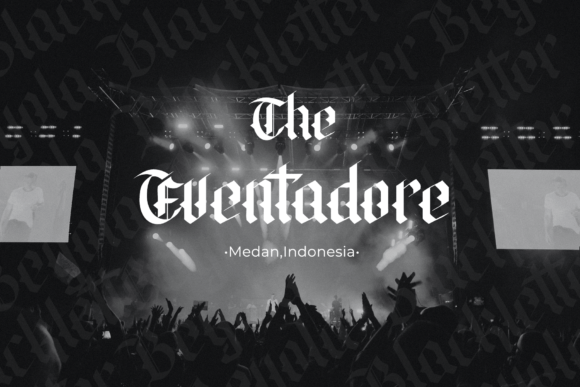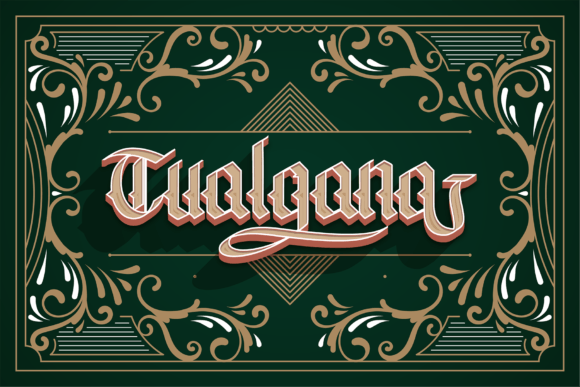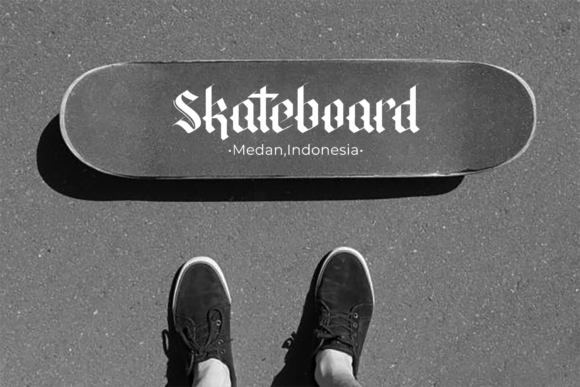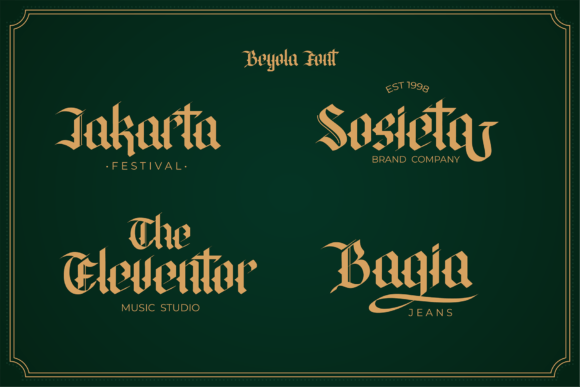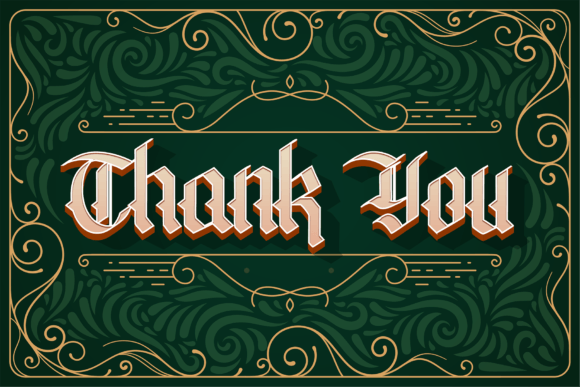
Beyola Font: Elevate Your Designs with a Touch of Vintage Charm
In the world of typography, fonts play a crucial role in conveying the tone and aesthetic of a design. For designers and crafters looking to add a touch of elegance and sophistication to their creations, the Beyola Font is an excellent choice. This stunning blackletter font boasts a vintage shape that fits a wide range of design needs, making it an ideal addition to your typography collection.
The Unique Charm of Beyola Font
Beyola Font is a beautifully crafted blackletter font that exudes a sense of nostalgia and classic charm. Its vintage shape is reminiscent of traditional calligraphy, yet it has a modern twist that makes it versatile and adaptable to various design styles. Whether you’re working on a branding project, a wedding invitation, or a packaging design, Beyola Font is sure to add depth and character to your creations.
Key Features of Beyola Font
- Vintage Blackletter Style: Beyola Font features a classic blackletter style with intricate details and ornate flourishes, giving it a unique and distinctive look.
- High Versatility: This font is highly versatile and can be used for a wide range of design projects, from logos and branding to invitations and packaging.
- Elegant and Sophisticated: Beyola Font adds a touch of elegance and sophistication to any design, making it perfect for projects that require a high level of refinement.
- Easy to Read: Despite its ornate details, Beyola Font is easy to read, making it suitable for both headlines and body text.
How to Use Beyola Font in Your Designs
Using Beyola Font in your designs is easy and straightforward. Here are a few tips to get you started:
- Pair it with a Sans-Serif Font: For a striking contrast, pair Beyola Font with a clean sans-serif font to create a visually appealing combination.
- Use it for Headlines and Titles: Beyola Font is perfect for headlines and titles, where its ornate details and vintage charm can shine.
- Add it to Your Branding: Use Beyola Font to add a touch of elegance and sophistication to your branding, including logos, business cards, and letterheads.
Why Choose Beyola Font?
With so many fonts available, why choose Beyola Font? Here are a few reasons why this font stands out:
- Unique and Distinctive: Beyola Font has a unique and distinctive look that sets it apart from other fonts.
- High-Quality Design: This font is designed with high-quality craftsmanship, ensuring that it looks great in any design.
- Versatile and Adaptable: Beyola Font is highly versatile and adaptable, making it suitable for a wide range of design projects.
In conclusion, Beyola Font is a stunning blackletter font with a vintage shape that fits all your design needs. Its unique charm, high versatility, and elegant sophistication make it an excellent choice for designers and crafters looking to add depth and character to their creations. Whether you’re working on a branding project, a wedding invitation, or a packaging design, Beyola Font is sure to impress. So why wait? Download Beyola Font today and elevate your designs with a touch of vintage charm!